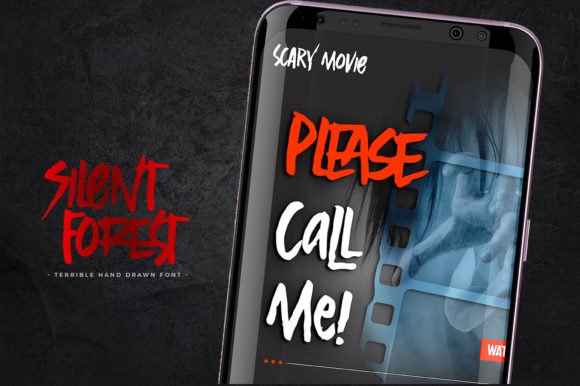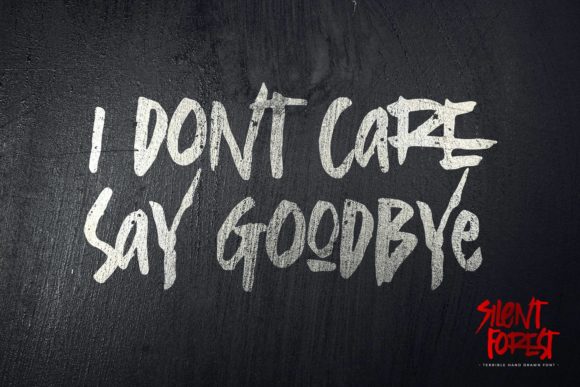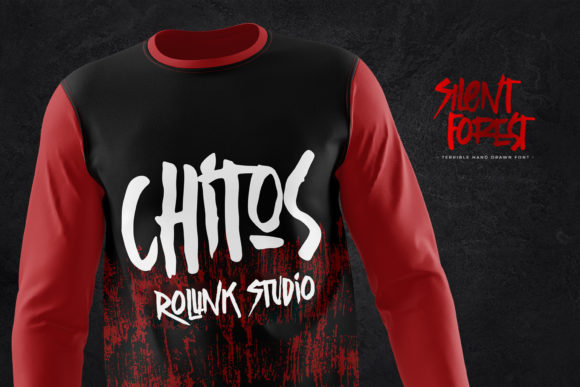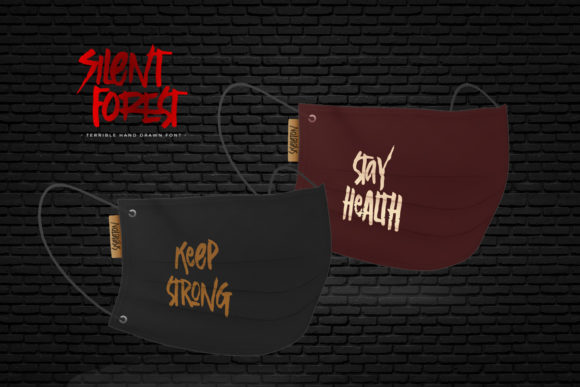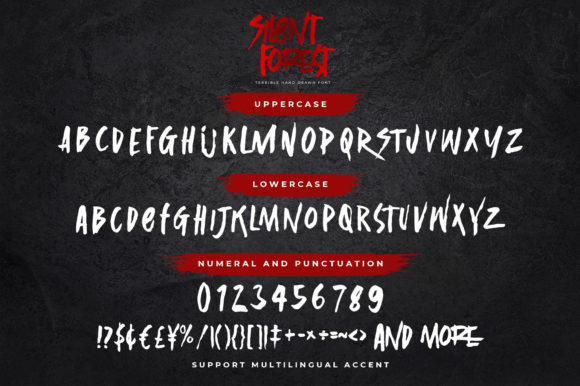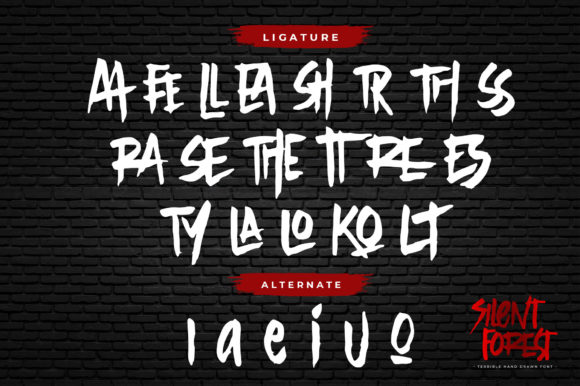
Introduction to Silent Forest Font
As I sat down to work on a Halloween design project, I knew I needed something that would transport my audience to a spooky realm. I began browsing through design resources, searching for that perfect font that would bring my creative vision to life. And then, I stumbled upon the Silent Forest Font – a dark and creepy display font that sent shivers down my spine.
With its eerie presence, the Silent Forest Font is the perfect addition to any Halloween design. But what makes it truly valuable for designers like us is its accessibility. PUA encoded, this font allows us to access all of its glyphs and swashes with ease, making it a high-quality design resource that’s a must-have for any creative project.
Key Features of Silent Forest Font
- Unique design style with a blend of natural elements and a touch of mysticism, perfect for creative projects.
- High-quality font with a transparent background, ideal for designers looking for a design resource that can be easily layered with other elements.
- Designed with a high resolution of 300 DPI, ensuring crisp and clear text, even when scaled up or down.
- Includes a range of characters, including uppercase and lowercase letters, numbers, and punctuation marks, making it a versatile font for various applications.
- Perfect for use in digital design, including websites, social media, and graphic design projects, where a high-quality and unique font can make a big impact.
- Supports various languages, including English, Spanish, French, and many more, making it a great font for international creative projects.
Honest Review: Silent Forest Font
As a designer, I’m always on the lookout for high-quality design resources to elevate my creative projects. Recently, I had the chance to try out the Silent Forest Font, and I’m excited to share my honest review with you.
What works well: ✨ The font’s unique and whimsical design is perfect for adding a touch of magic to your projects. The high-quality design ensures that the font looks great on both light and dark backgrounds. The free download option is also a major plus, making it an excellent choice for designers on a budget.
What could improve: ⚠️ The font’s transparent background can sometimes make it difficult to use on images with complex backgrounds. Additionally, the font’s limited character set may not be suitable for longer blocks of text.
Overall impression: I’m impressed with the Silent Forest Font‘s unique design and high-quality design. While it may have some limitations, it’s an excellent choice for designers looking to add a touch of whimsy to their projects. If you’re working on a creative project and need a font with a bit of personality, the Silent Forest Font is definitely worth checking out.
- Unique and whimsical design
- Perfect for adding a touch of magic to projects
How to Use Silent Forest Font
The Silent Forest Font is a versatile design resource ideal for various creative projects. It offers a free download option, making it accessible to designers of all levels.
Tips for Getting the Most Out of Silent Forest Font
To get the most out of the Silent Forest Font, consider the following tips:
- Use the font with a transparent background for a clean and modern look.
- Experiment with different font sizes and colors to add visual interest.
- Combine the font with other design elements, such as images and graphics, to create a unique visual identity.
The Silent Forest Font is suitable for a variety of design projects, including:
- Brand identity and logos.
- Marketing materials and brochures.
- Website design and development.
- Print materials and business cards.
Alternatives to Silent Forest Font
Whimsy Woodland Font
The Whimsy Woodland Font is a playful, whimsical design resource perfect for creative projects that need a touch of magic. It features a transparent background and is available for free download. This font is ideal for children’s book illustrations, fairy tale-inspired designs, or any project that requires a sense of wonder.
Compared to Silent Forest Font, Whimsy Woodland Font is more playful and less serious, making it a great choice for projects that need a lighthearted tone. While Silent Forest Font is more suited for nature-inspired designs, Whimsy Woodland Font can be used for a wider range of creative projects.
What is the recommended resolution for printing designs using the Silent Forest Font?
For optimal results, we recommend printing designs using the Silent Forest Font at a resolution of at least 300 DPI (dots per inch). This ensures that the font’s high-quality design elements are rendered clearly and accurately in print.